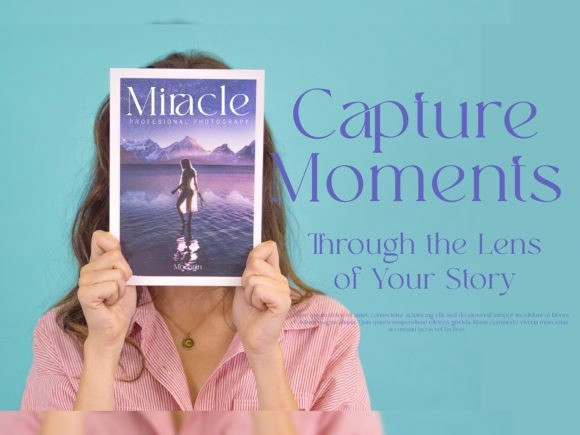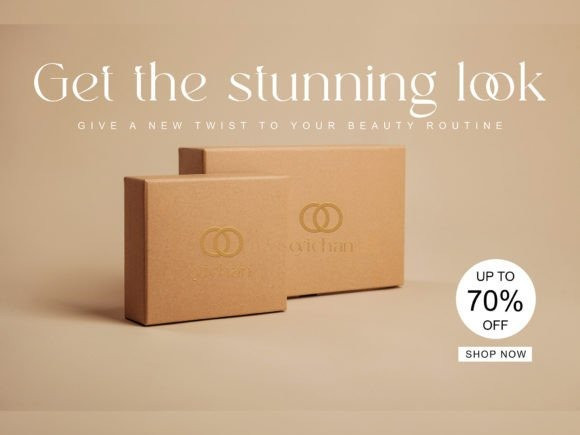
Mochain Font
Mochain Font is an elegant and bold serif font. Fall in love with its incredibly versatile style and use it to create gorgeous wedding invitations, beautiful stationary art, eye-catching social media posts, and much more